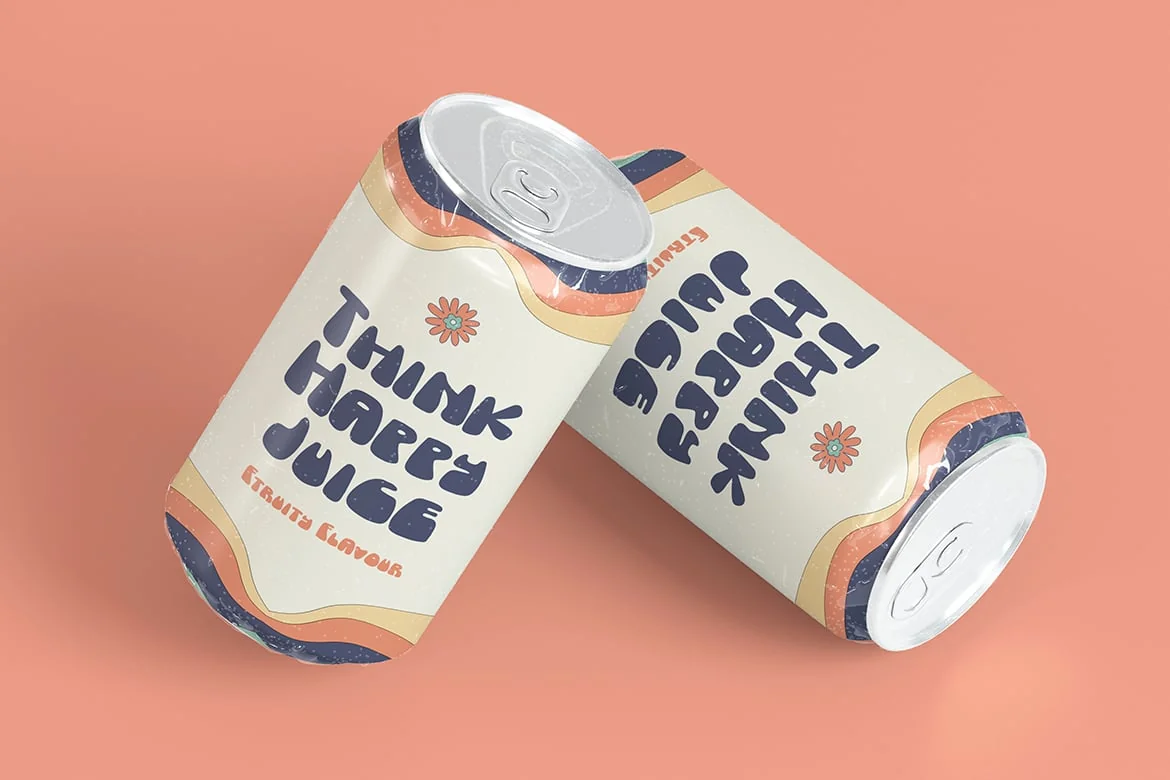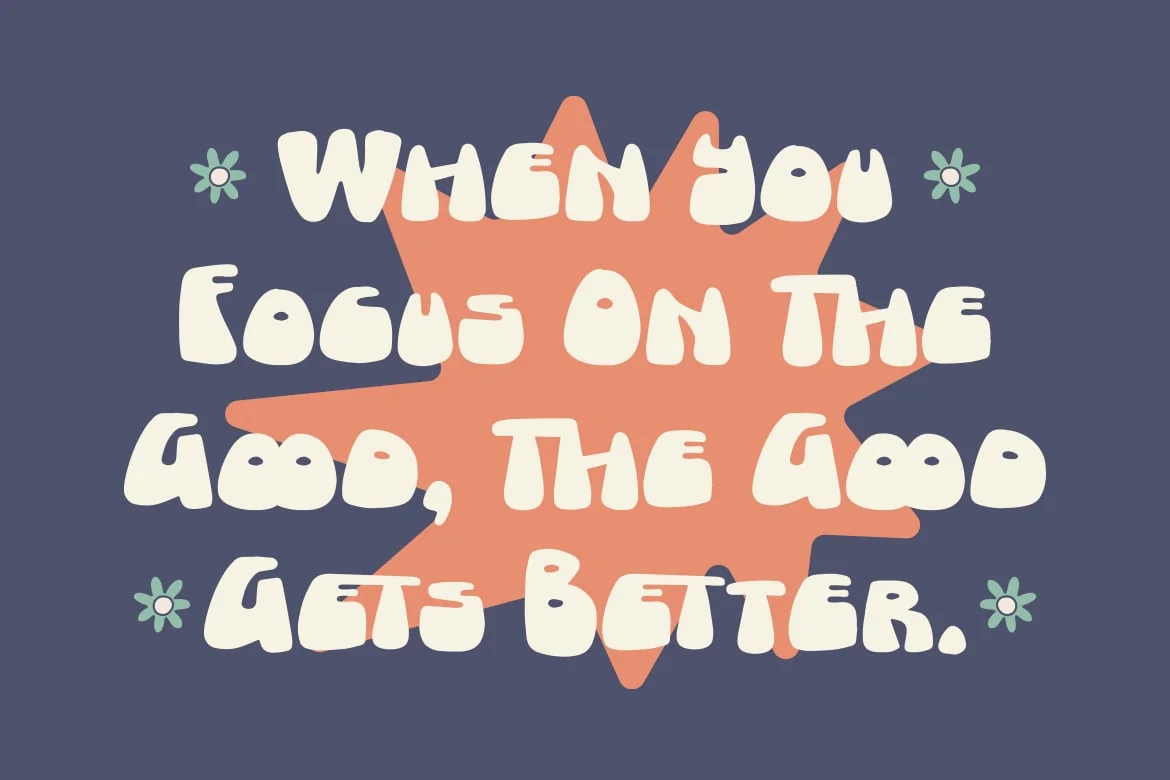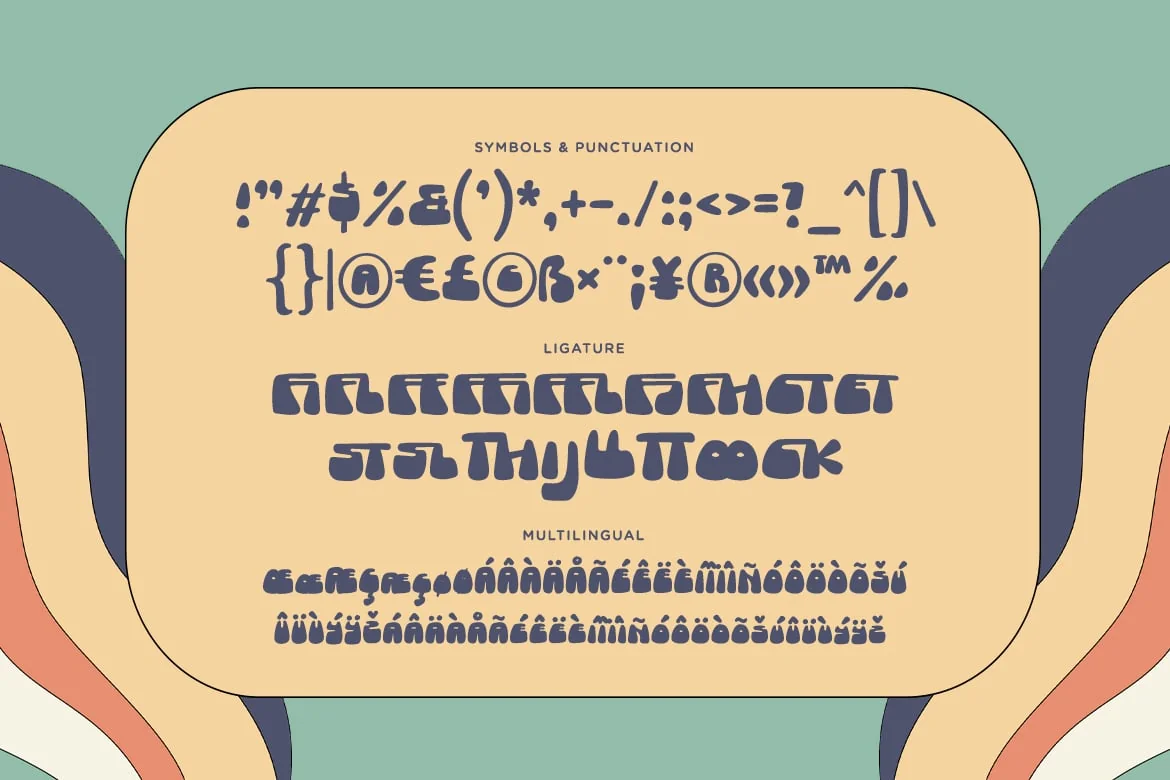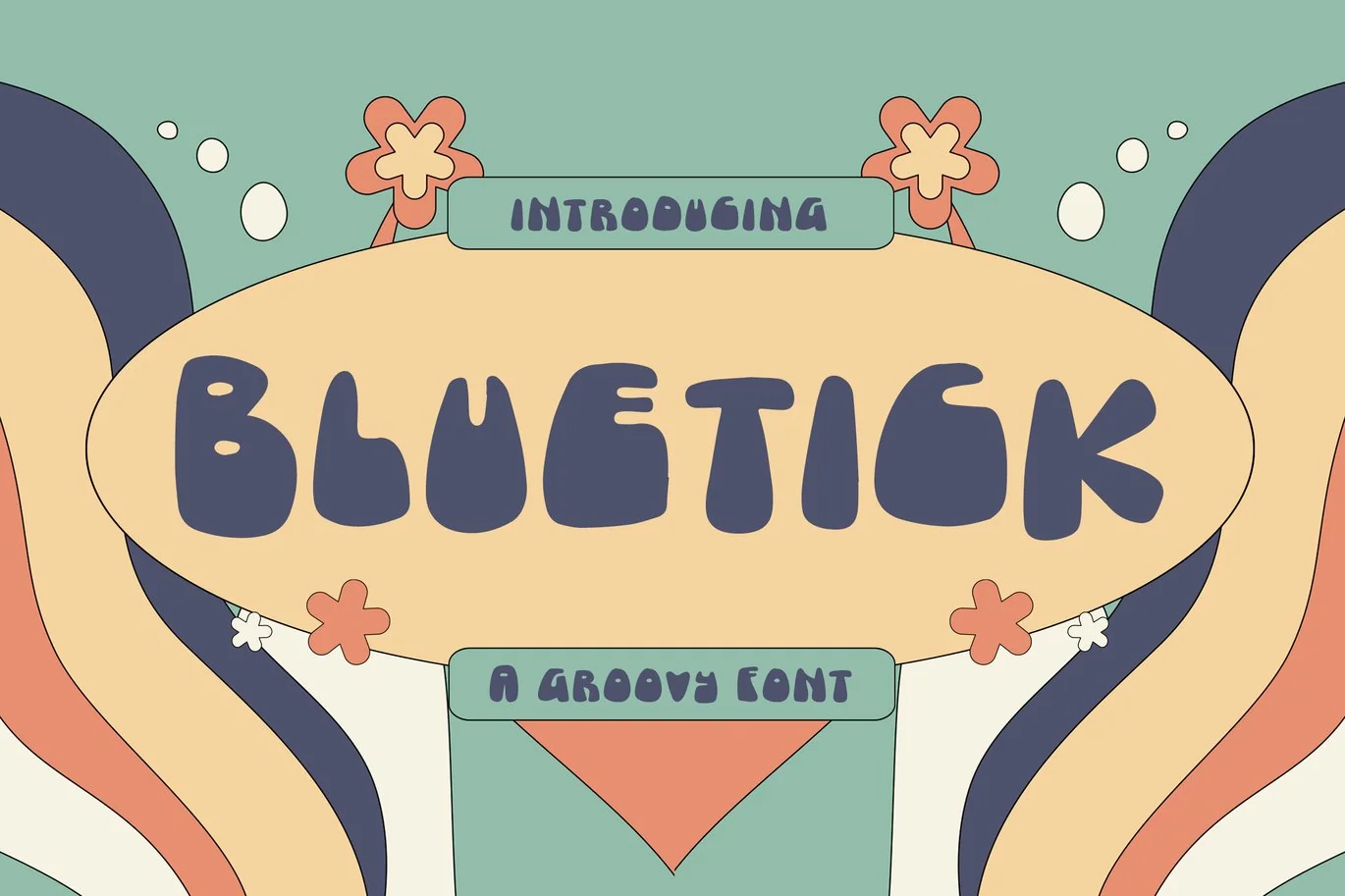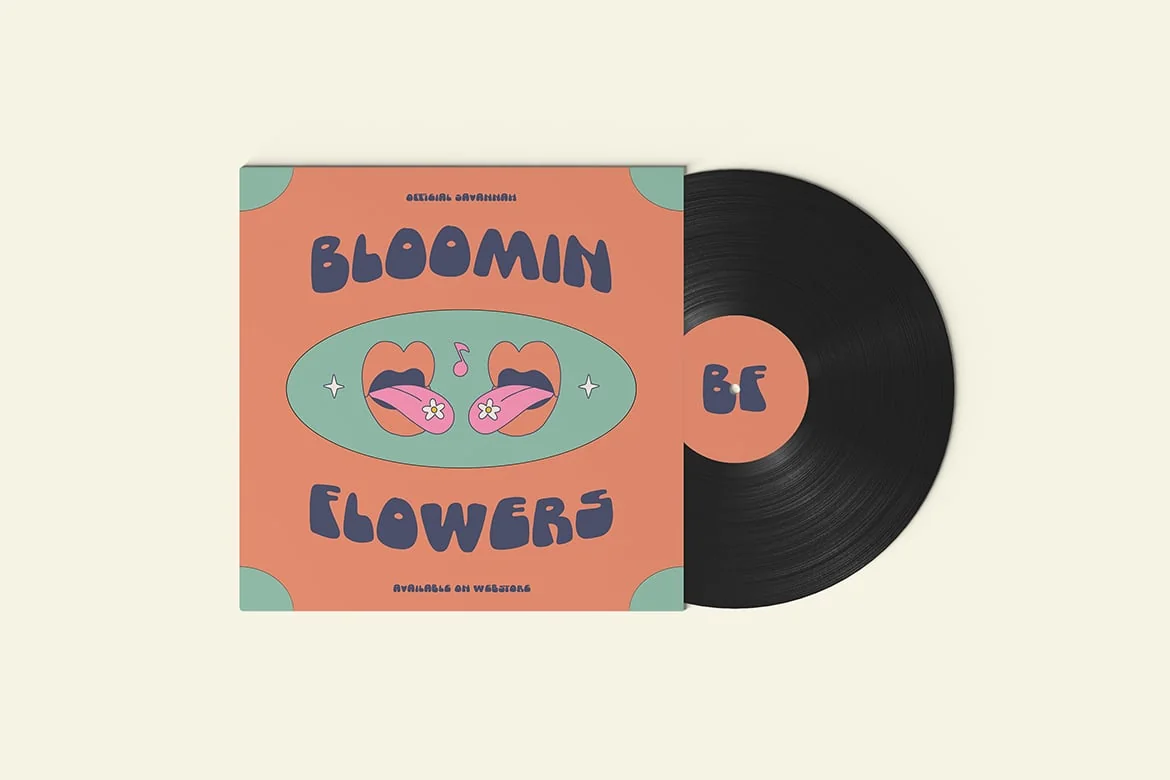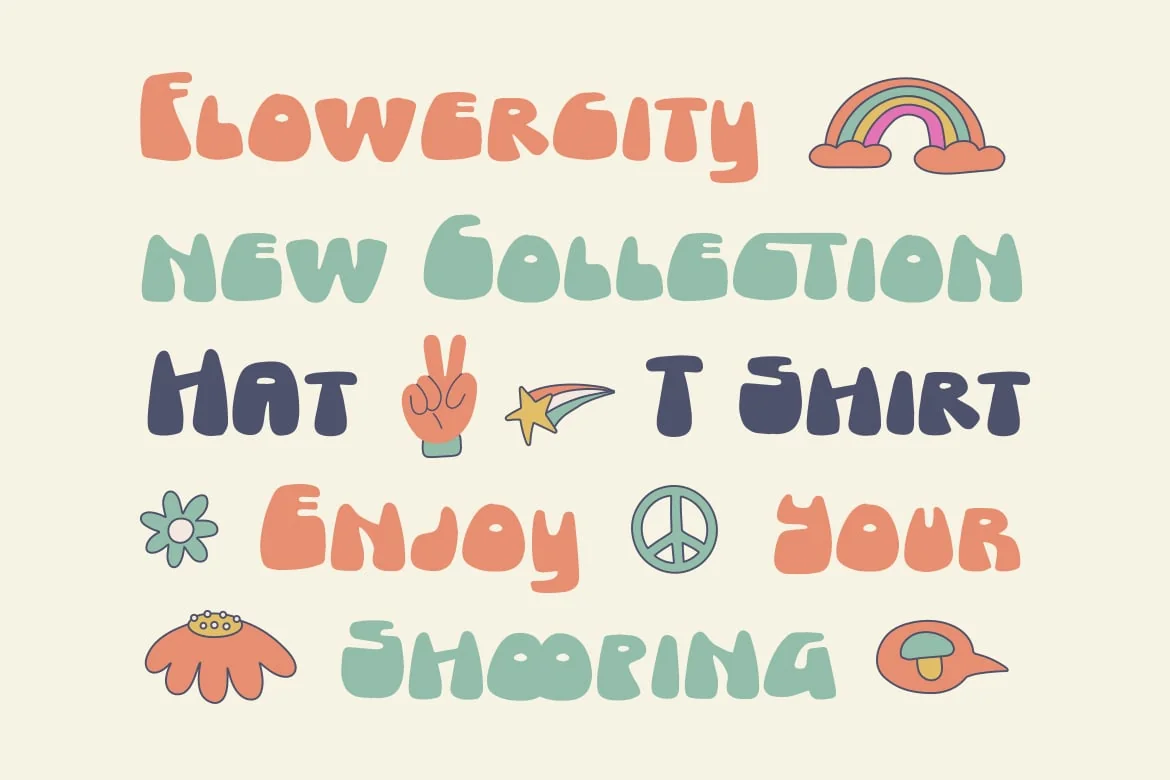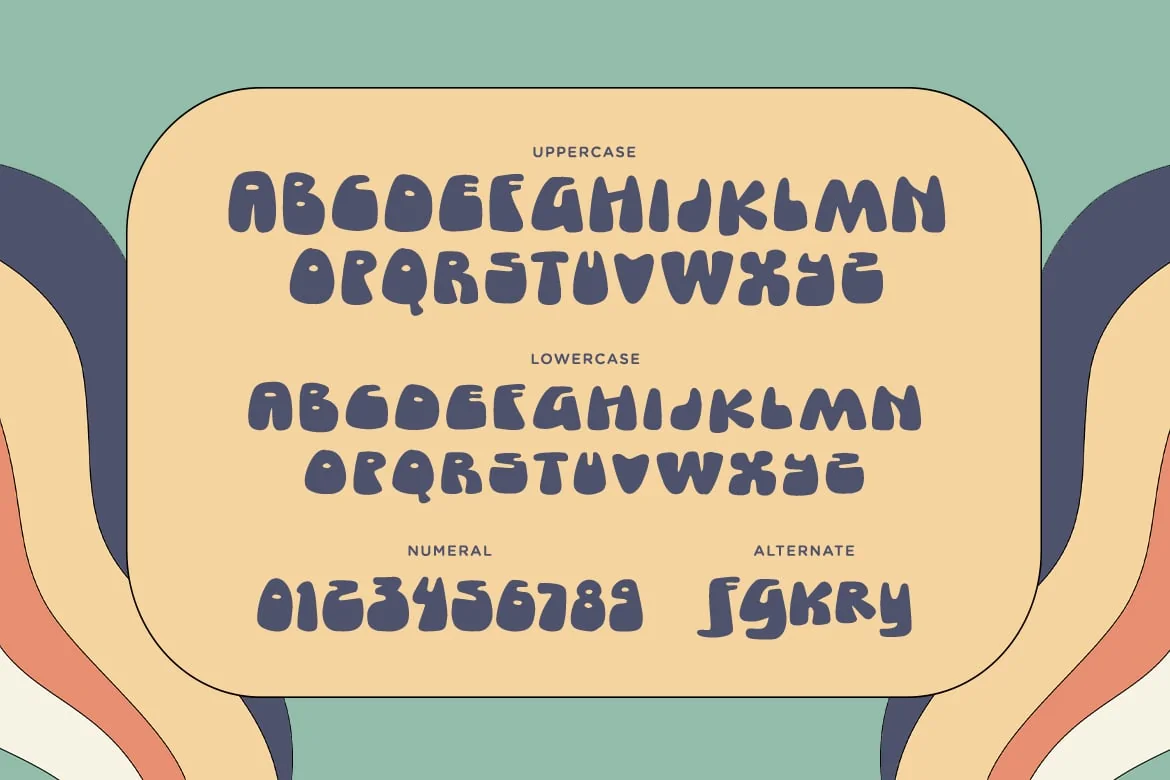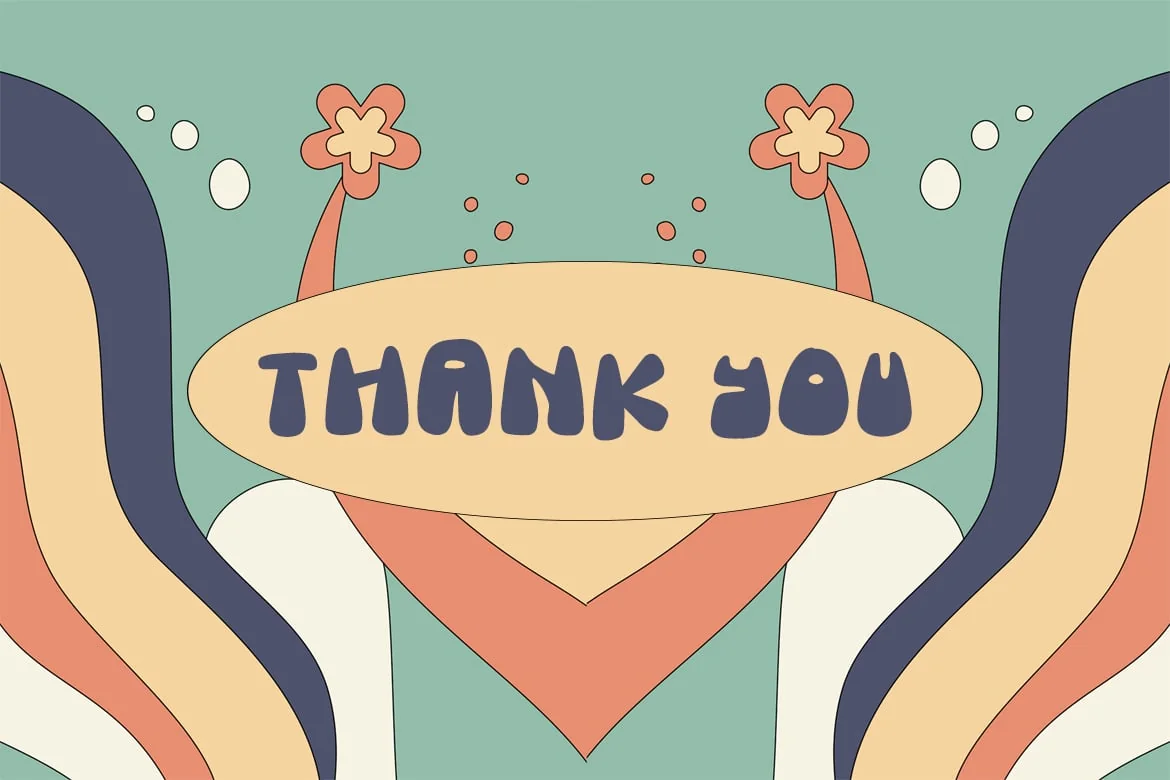
Bluetick – Groovy Font
Introducing, Bluetick. A groovy font that will bring you fun vibes.
Bluetick feels playfully nostalgic and delivers an incredible groovy aesthetic.
Use this display font to add that special touch to any design idea you can think of!